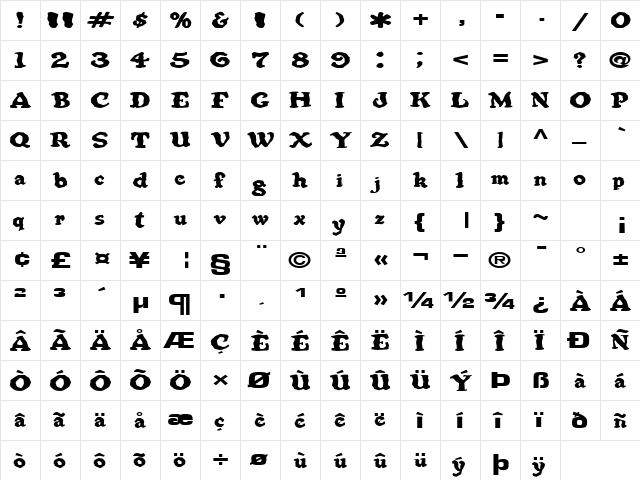
FoolHartOld27 Regular Font Preview
FoolHartOld27 Regular
FoolHartOld27 Regular Font Details
Design Context for FoolHartOld27 Typeface
FoolHartOld27 is a composed and adaptable typeface that performs quietly and consistently across a wide range of design contexts.